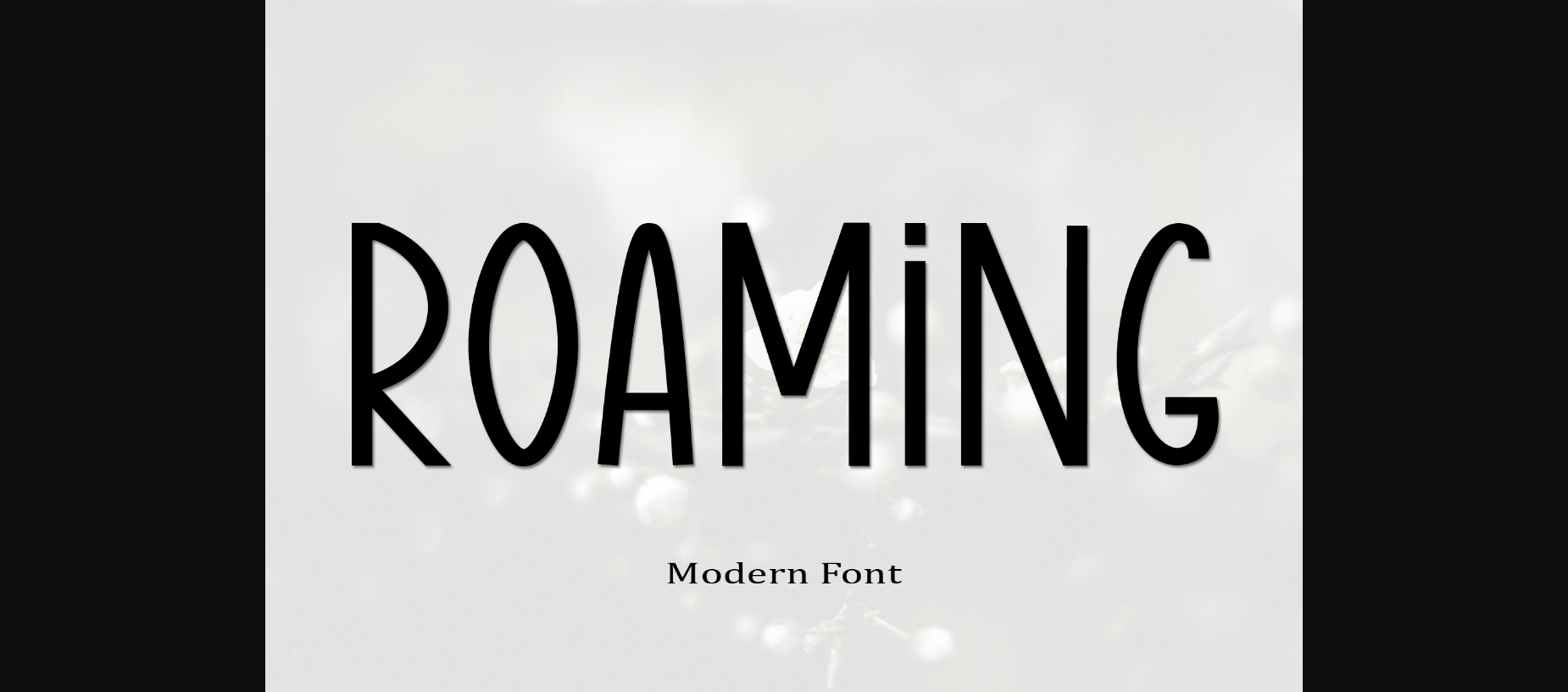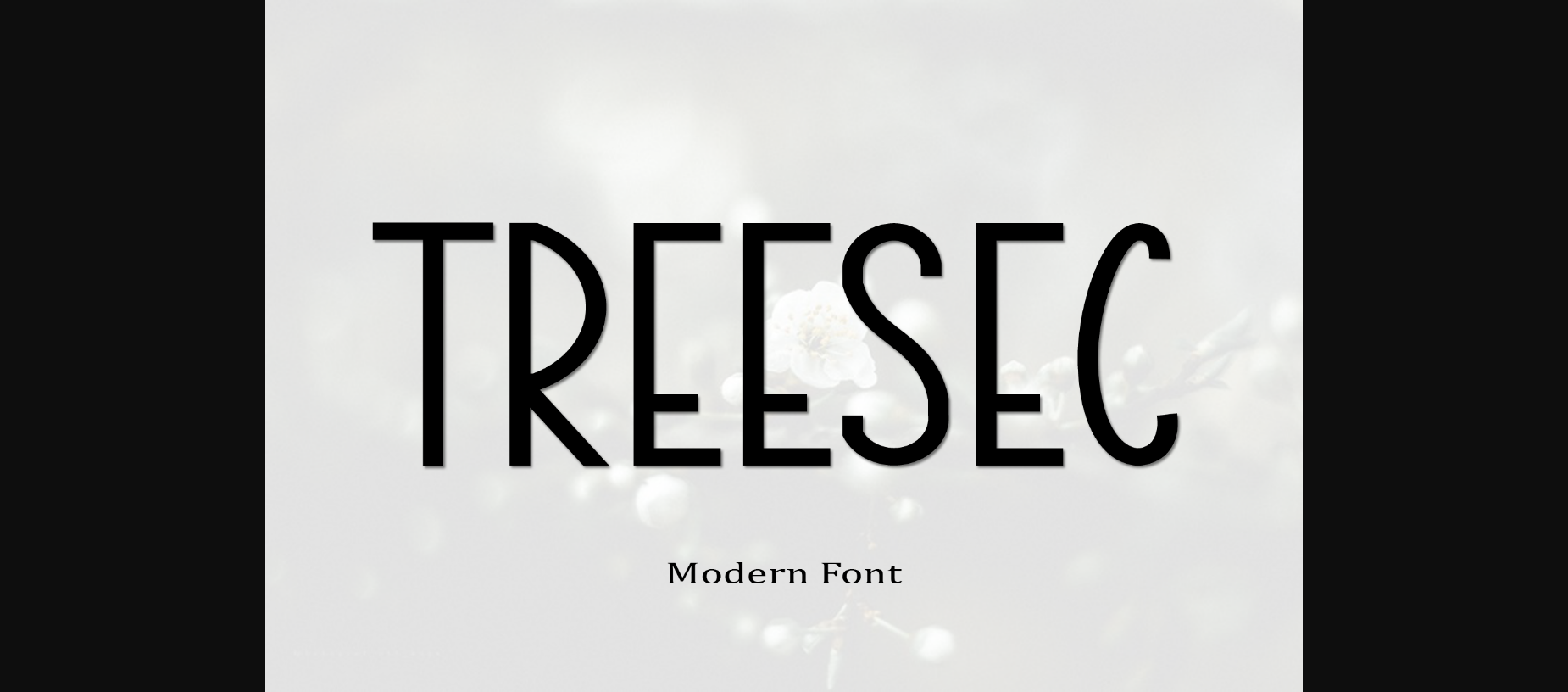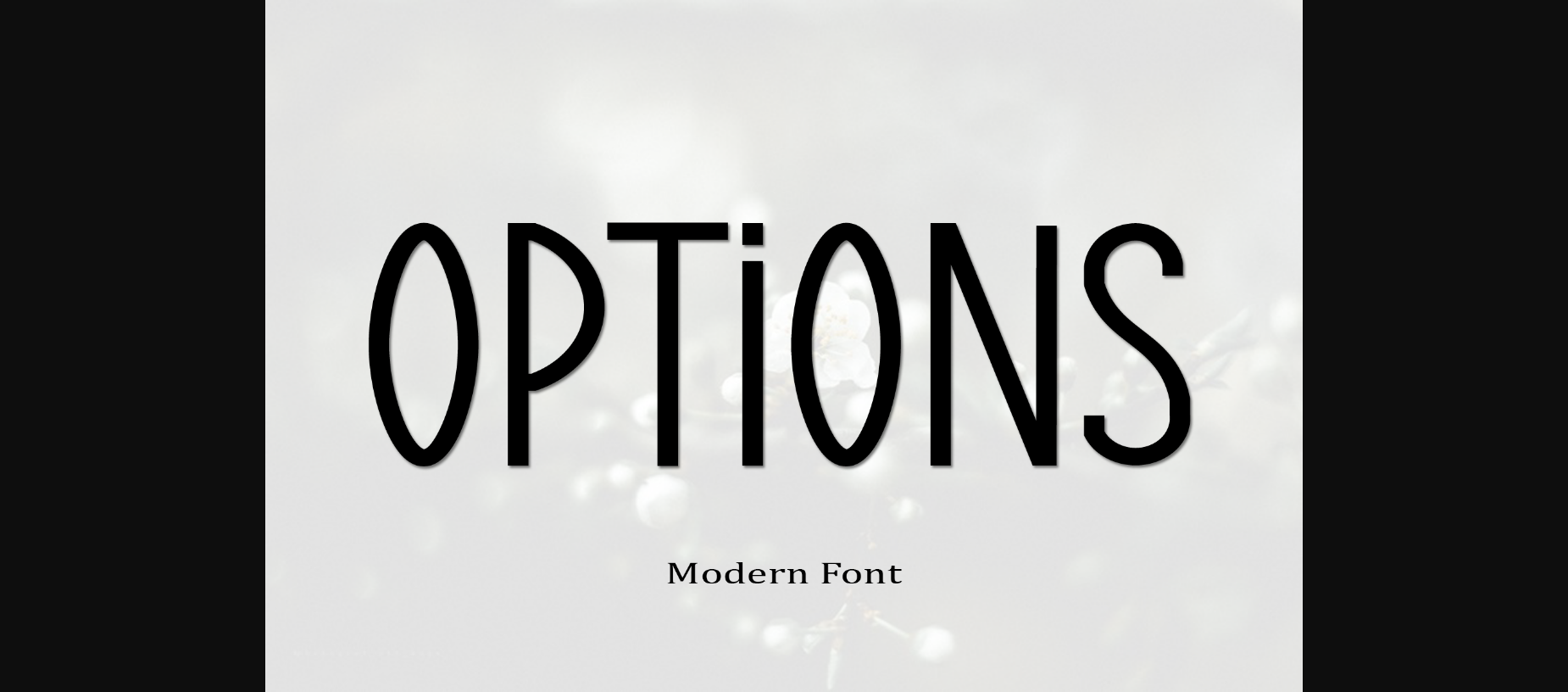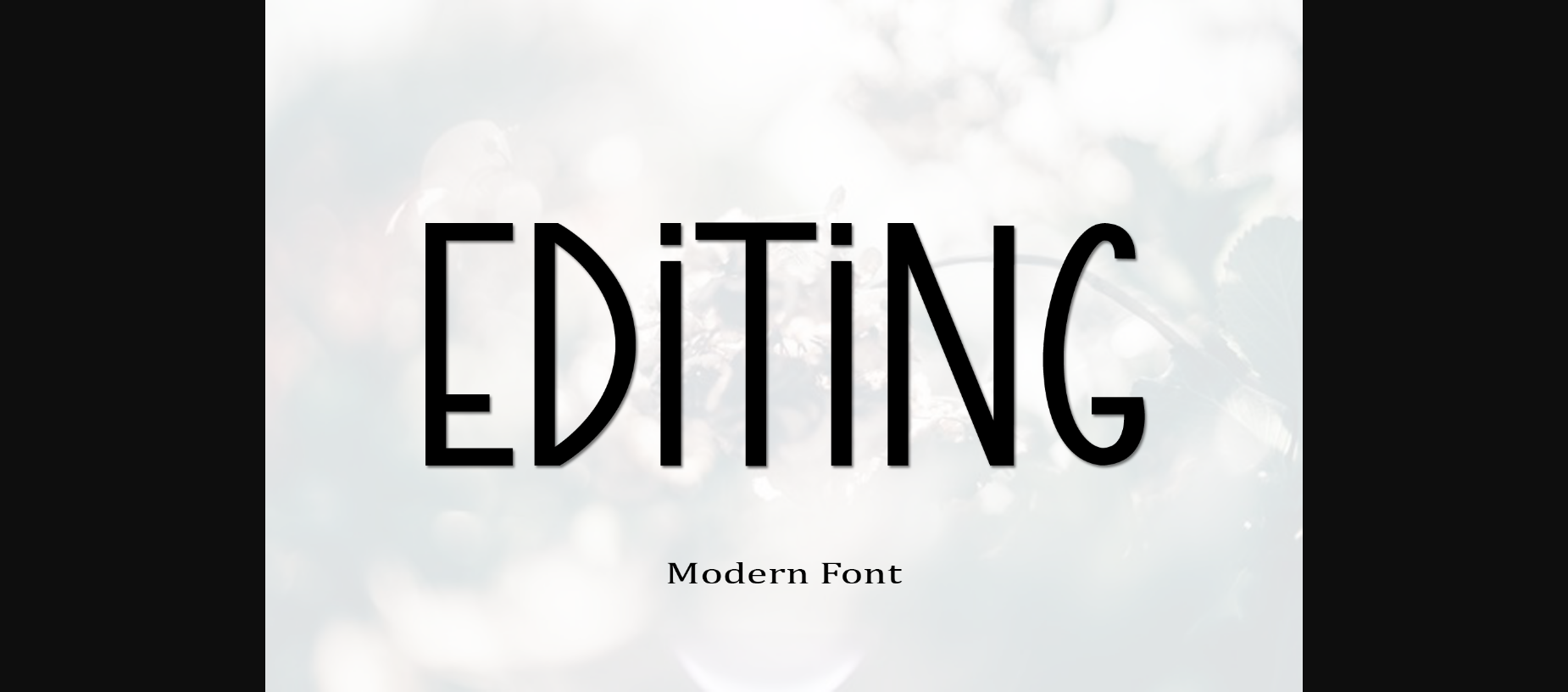
Roaming Font
About Roaming Font
Roaming is a classic and simple sans serif font, created in a random and free style. It is suitable for logotypes, headlines, corporate identity, brand identity, apparel industry, posters, music, movies, games, magazines or any of your creative design projects.